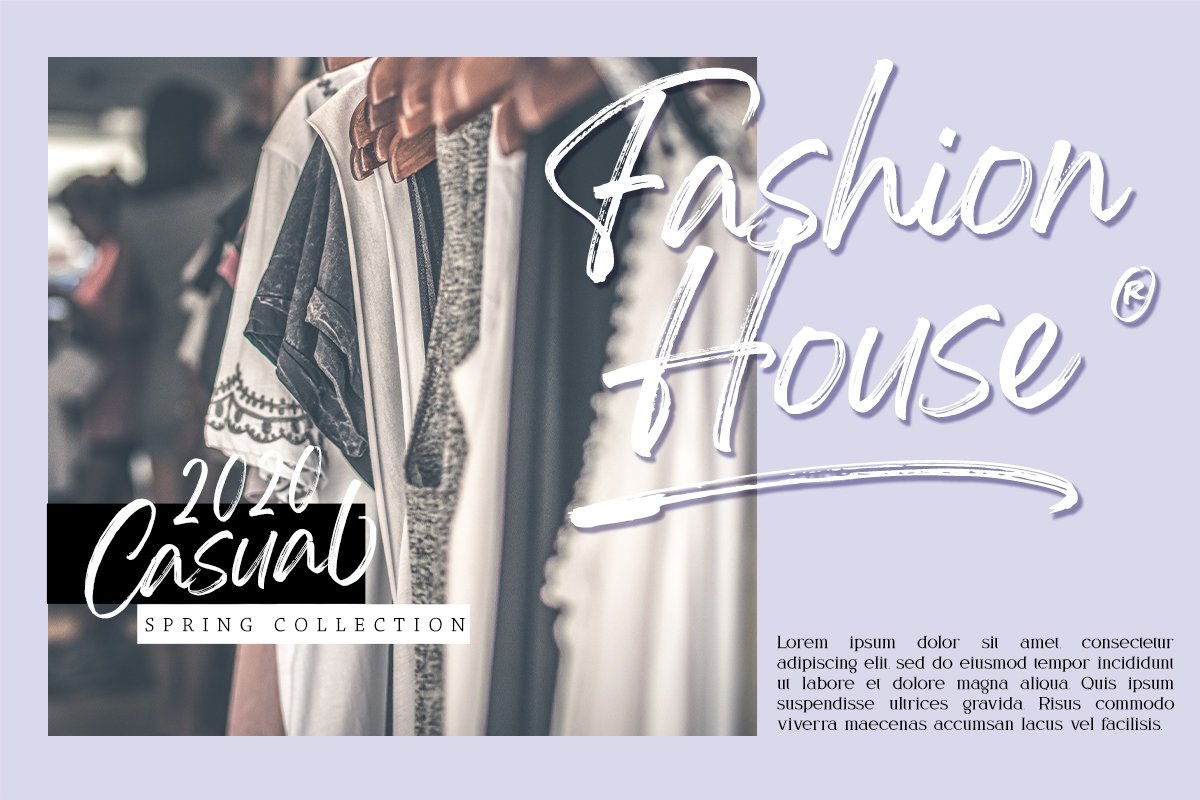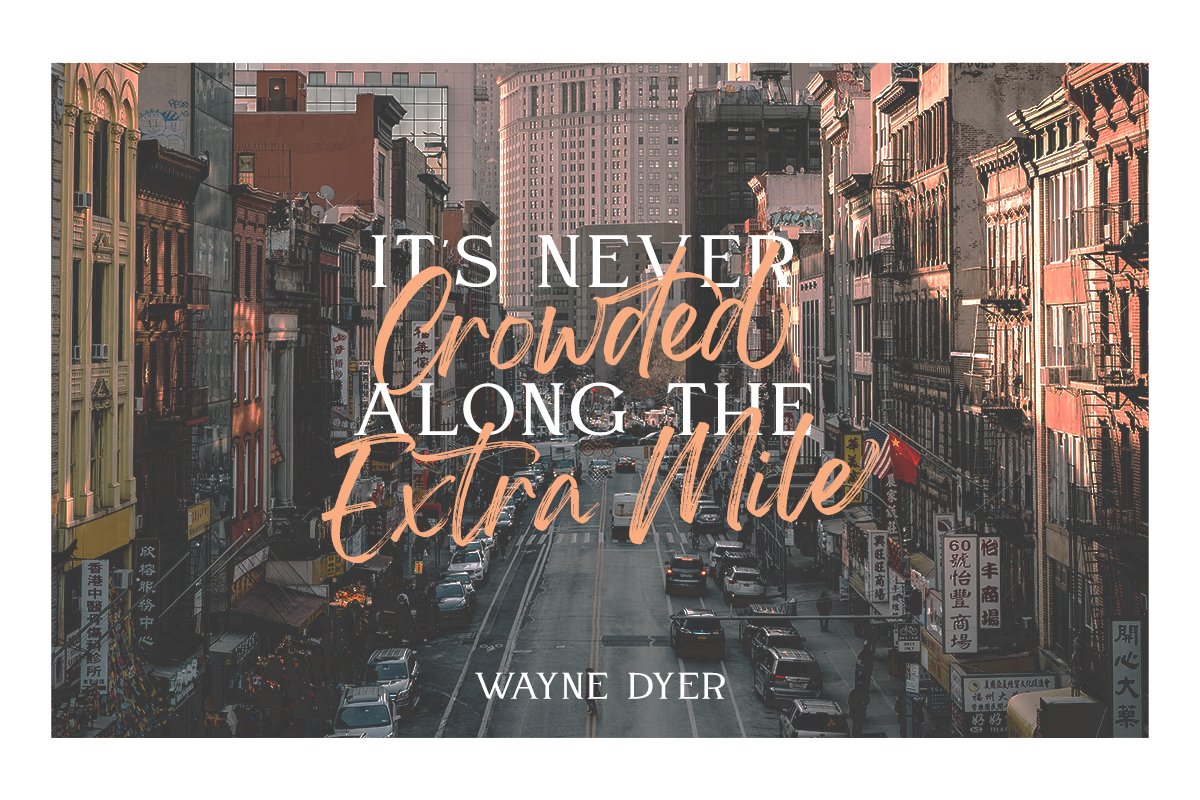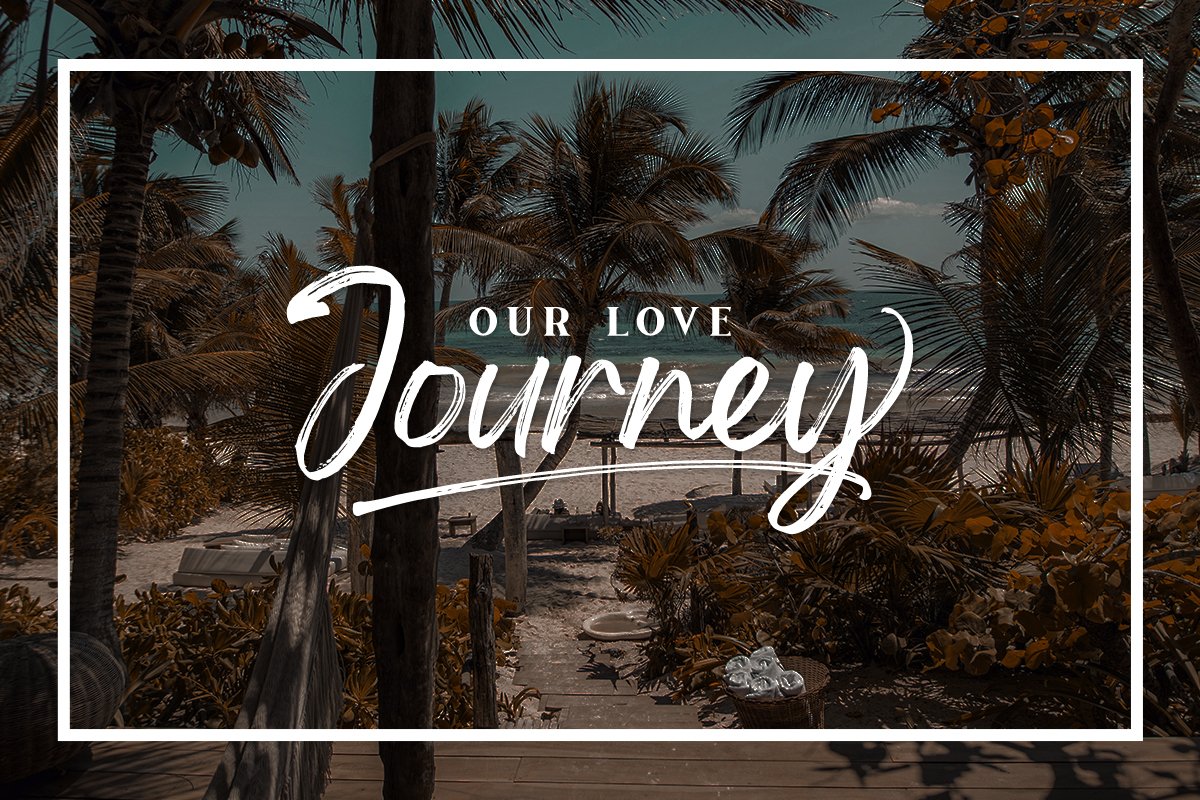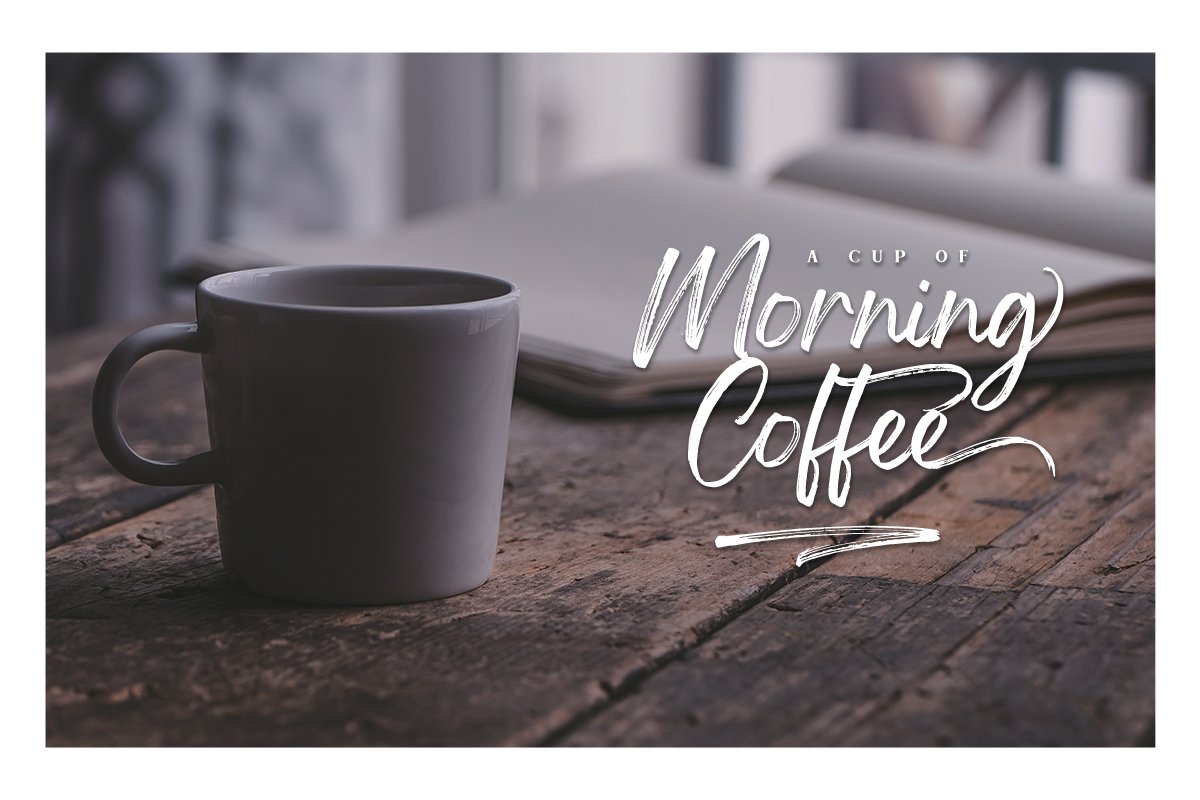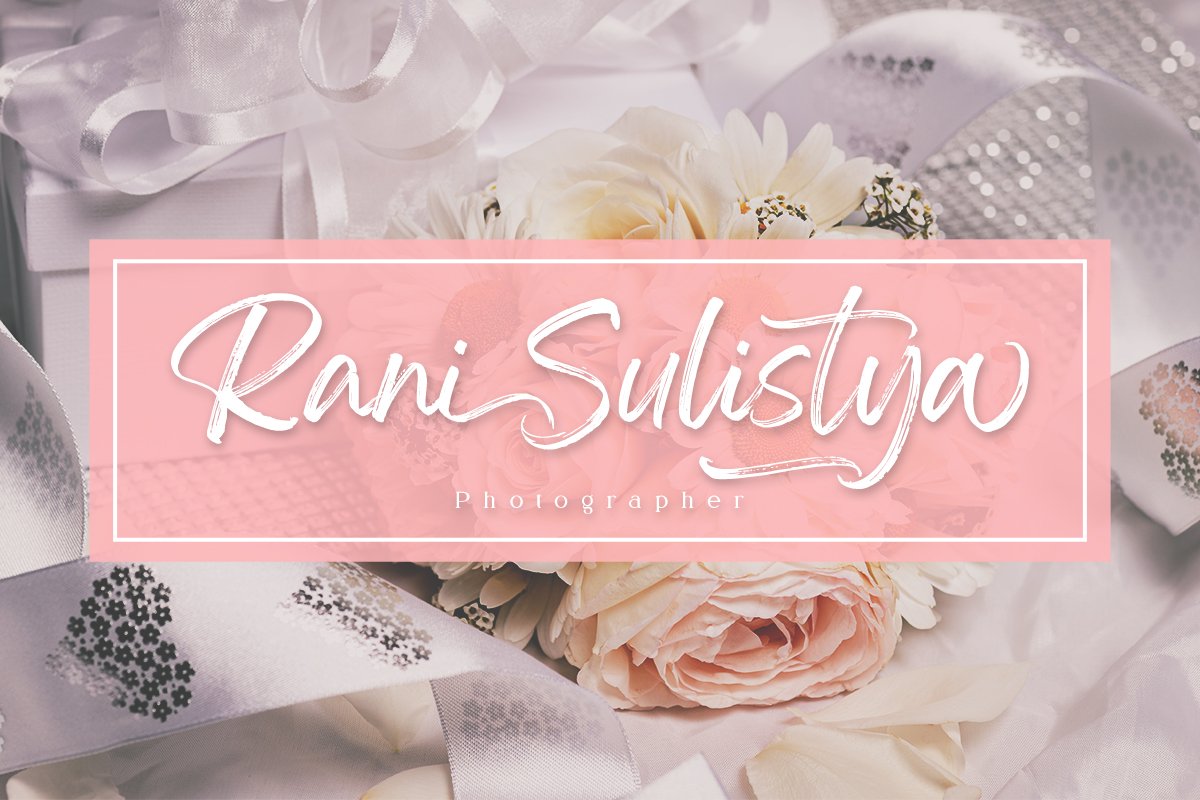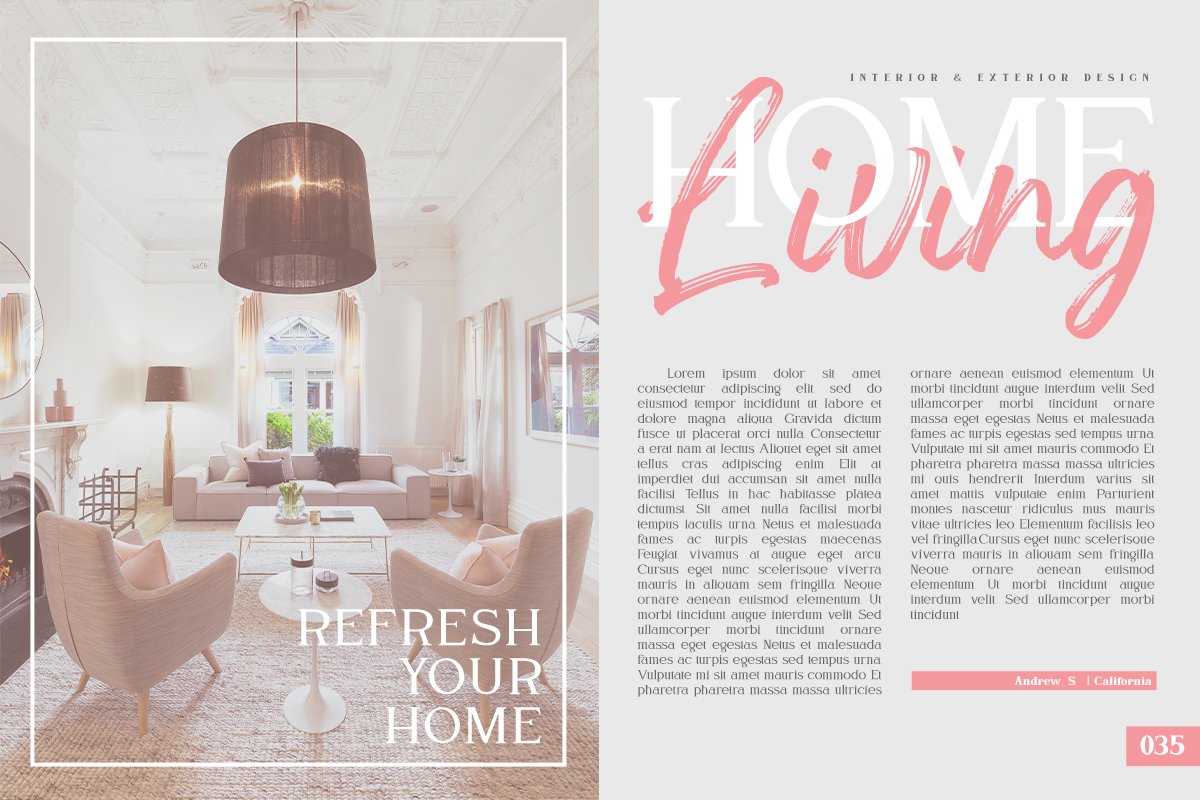
About the Gellatio Chic Brush Font
Please visit this page for more licenses : https://din-studio, com/product/gellatio-brush-font/Say Hello to the Gellatio Chic Brush Font, Made from natural hand brush, it will make your design project more beautiful, The font is suitable for various designs, such as posters, banners, logos, book covers, headings, printed products, merchandise, social media, and more